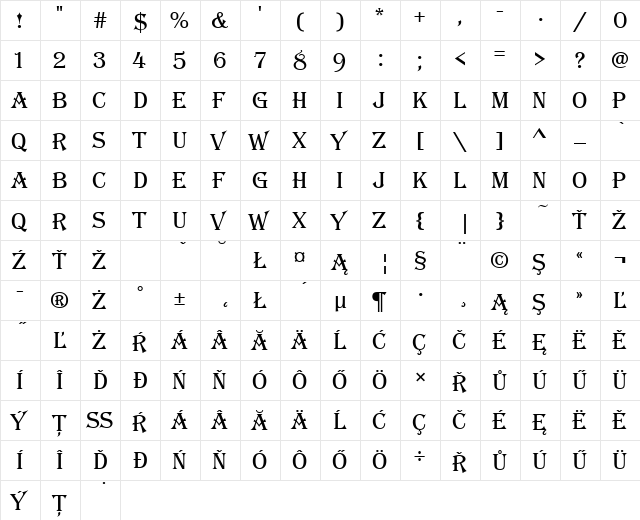
AlgerianBasDEE Regular
Design Context for AlgerianBasDEE Typeface
AlgerianBasDEE offers clean, dependable letterforms without strong stylistic allegiance, making it a practical choice for designers who need flexibility.